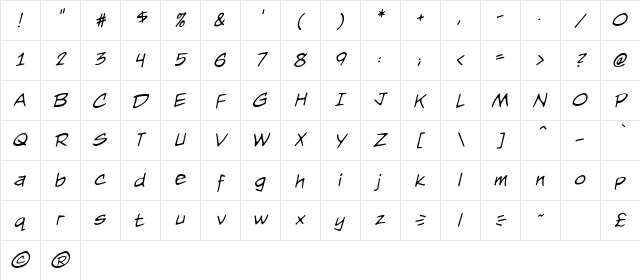
Nightwatcher BB Italic
Foundry: Nate Piekos. Blambot.com
Designer: Nate Piekos
Design Context for Nightwatcher BB
Nightwatcher BB is a composed and adaptable typeface that performs quietly and consistently across a wide range of design contexts. The slanted form adds forward momentum and visual energy.
Pro Tip: Use Nightwatcher BB for emphasis, pull quotes, and subheadings where its slanted energy can add rhythm to the layout.
Who designed the Nightwatcher BB Italic font?